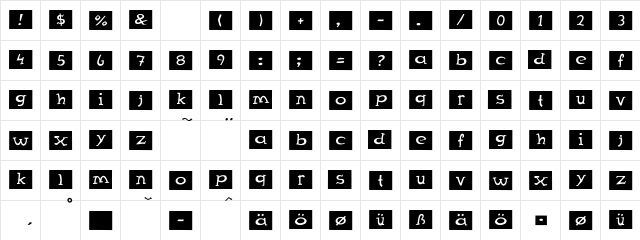
Mex Regular Font Preview
Mex Regular
Mex Regular Font Details
Design Context for Mex Typeface
Mex offers clean, dependable letterforms without strong stylistic allegiance, making it a practical choice for designers who need flexibility.